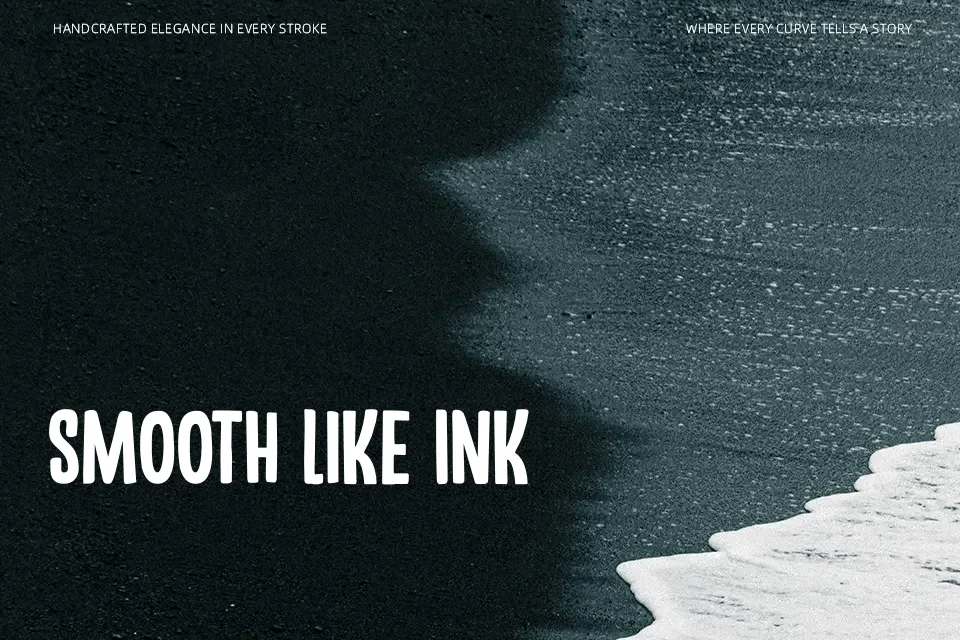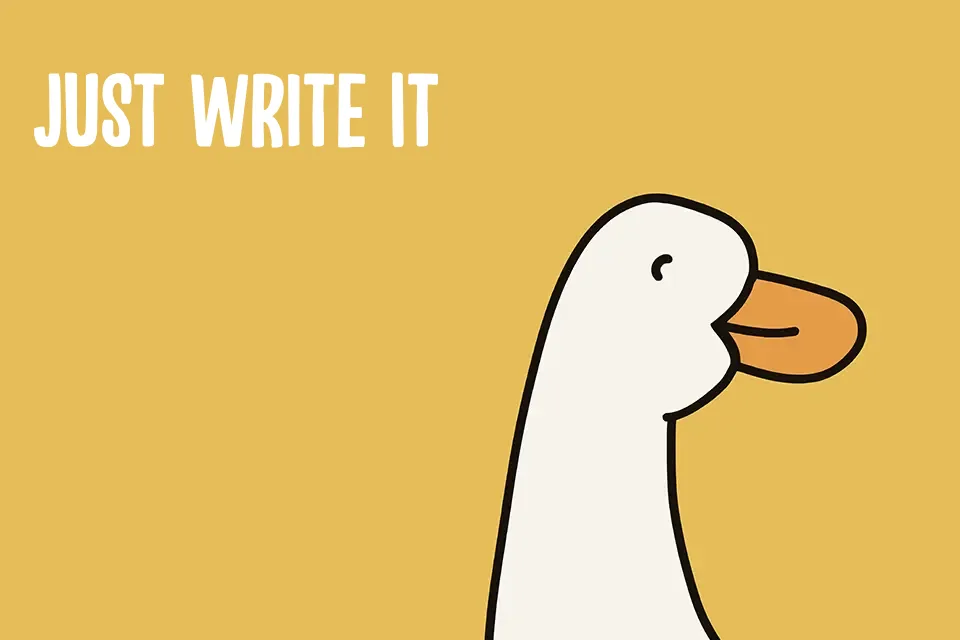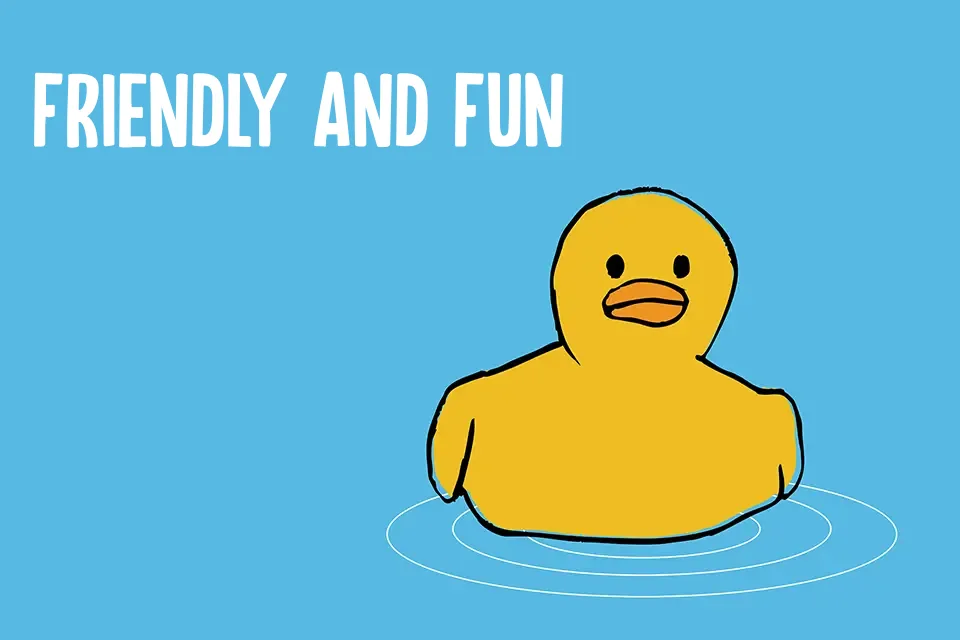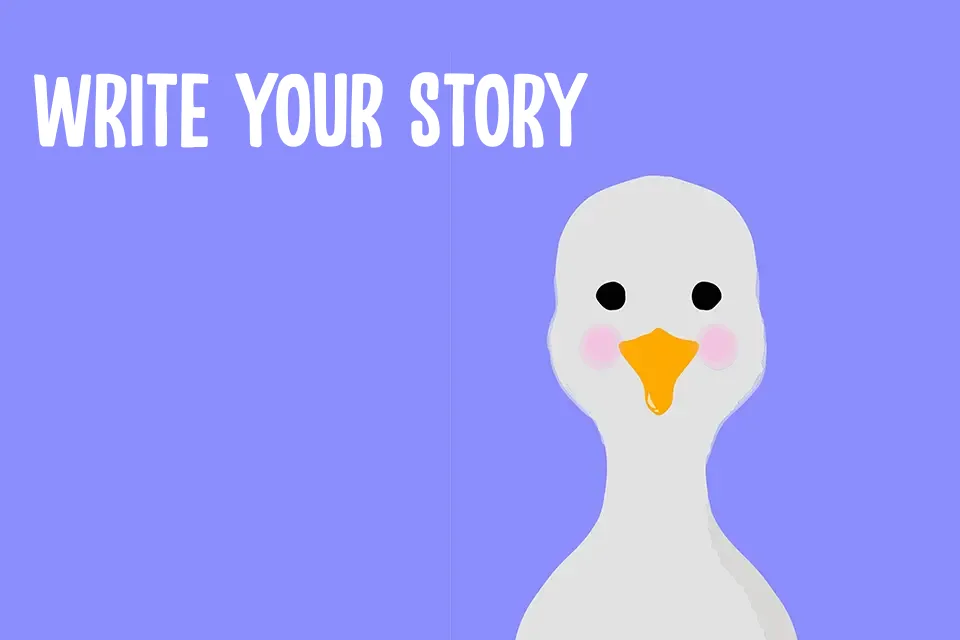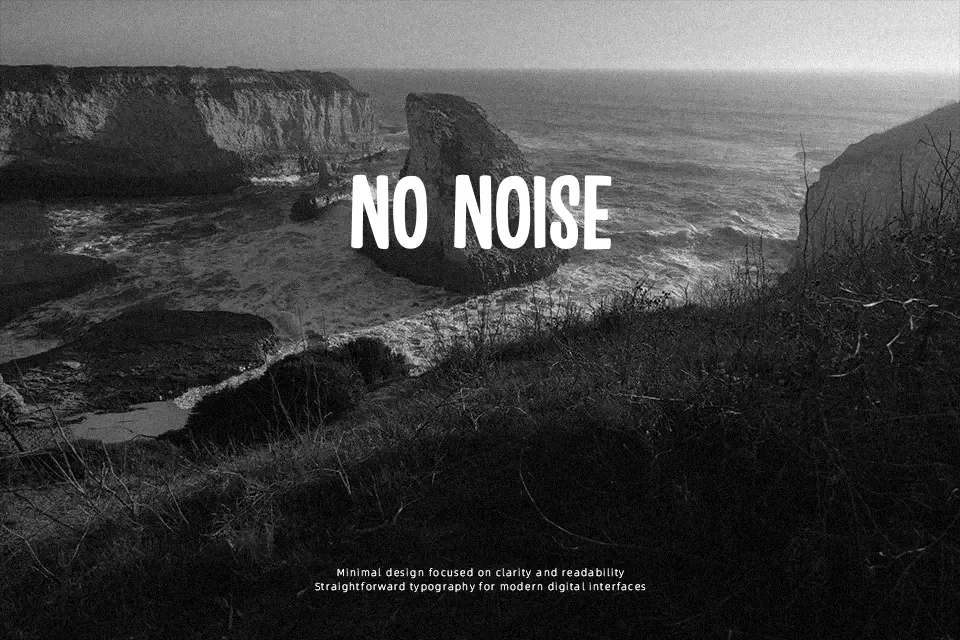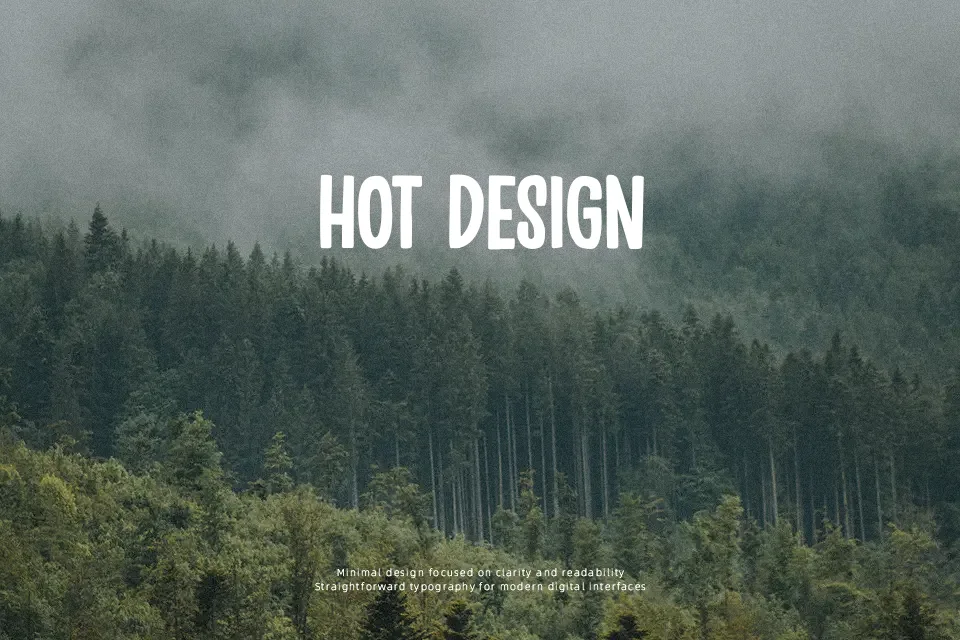
Troutbeck Font
Designed by Hanoded
Troutbeck Font combines an all-caps sans serif anatomy with organic, hand-drawn contours that introduce an approachable personality to headline typography. Each character exhibits consistent vertical proportions alongside clean, uniform strokes that maintain visual rhythm across short titles. The spacing remains comfortably balanced in large headings, allowing dense arrangements to retain high legibility on product labels and poster artwork. However, the uniform capital height and slightly condensed letterforms become fatiguing in extended text blocks, making the typeface impractical for sustained reading. When reserved for prominent display settings, the design delivers dependable clarity and distinct artisanal warmth.
Best For: product packaging, book covers, poster headlines, apparel graphics
Not Ideal For: long paragraph text, mobile user interfaces, legal contracts, dense editorial layouts
Perfect for branding, headline, and kids, with a bold and display style.